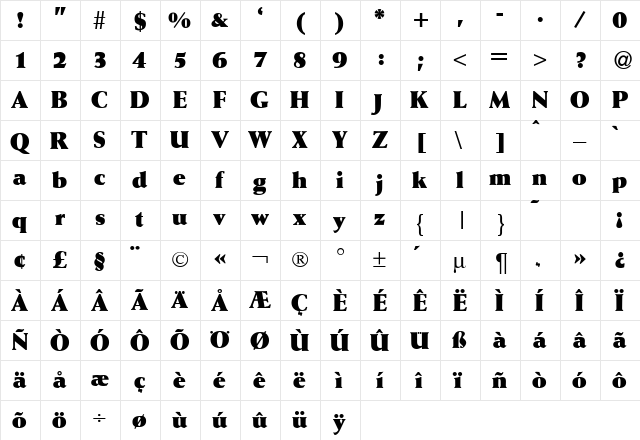
WeinAntikBlkDB Bold
Design Context for WeinAntikBlkDB Typeface
WeinAntikBlkDB offers clean, dependable letterforms without strong stylistic allegiance, making it a practical choice for designers who need flexibility. The heavy weight commands attention and anchors typographic hierarchies.